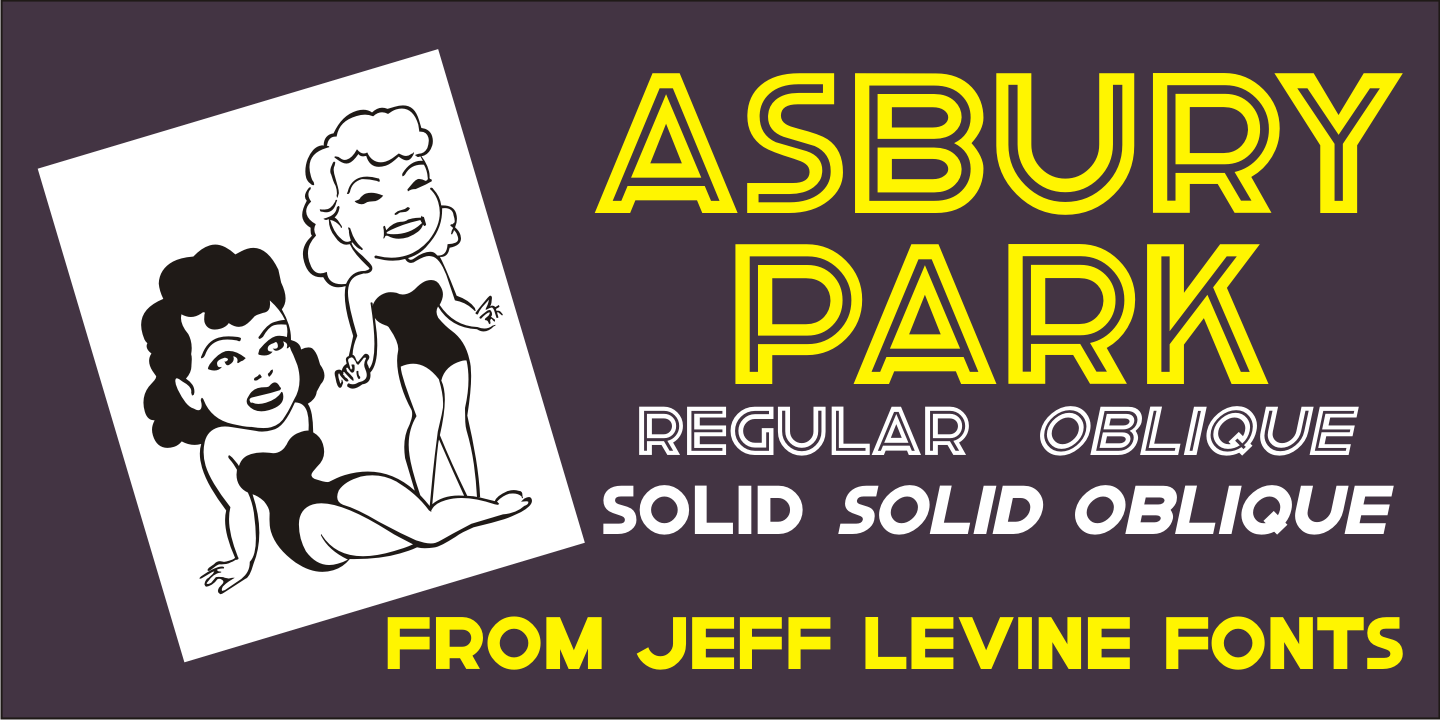
Asbury Park
Buy NowIn the 1930s the WPA (Works Progress Administration) sponsored a Federal art project. Many posters were produced that featured government-sponsored cultural events, health and safety tips and various other topics.
One such poster from Pennsylvania has the words 'Work with Care” in a hand-lettered inline sans design. This became the basis for Asbury Park JNL.